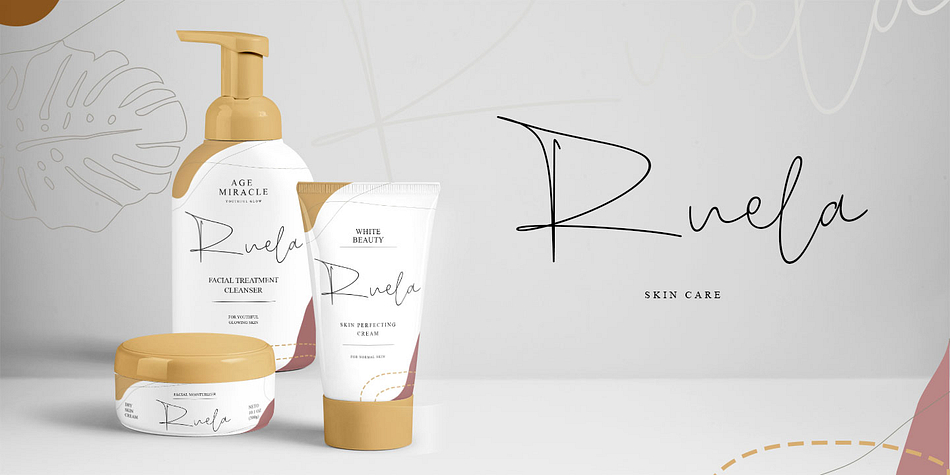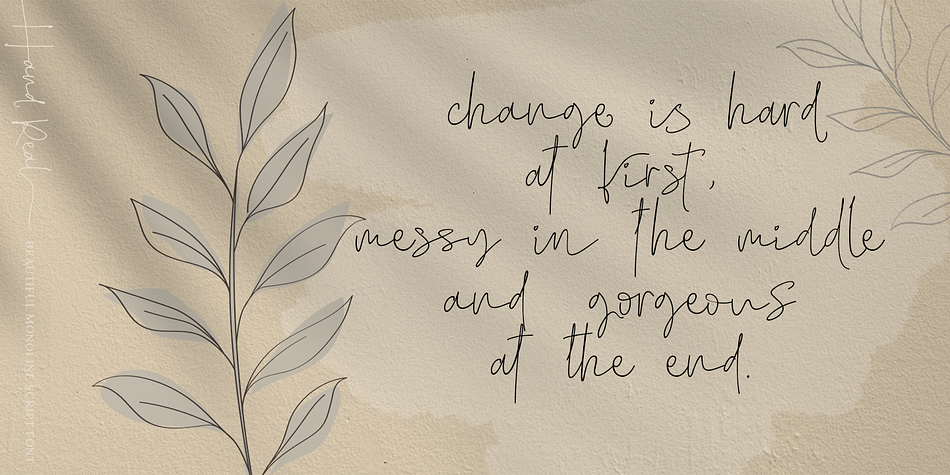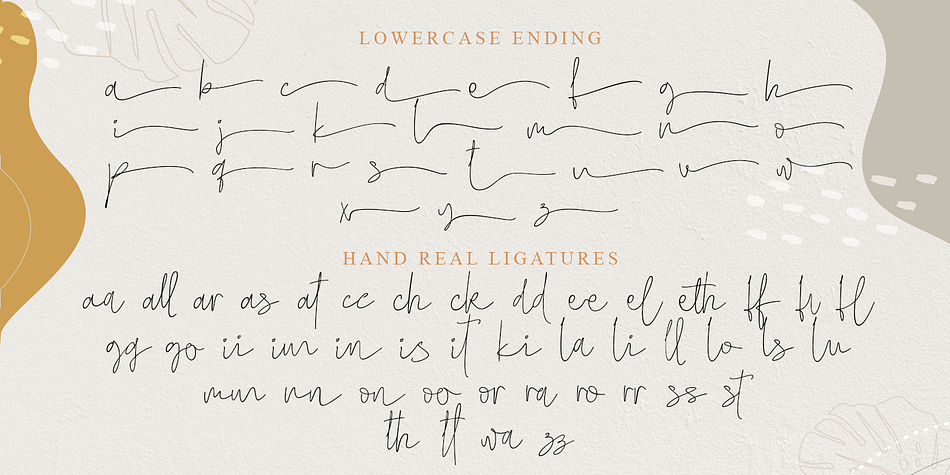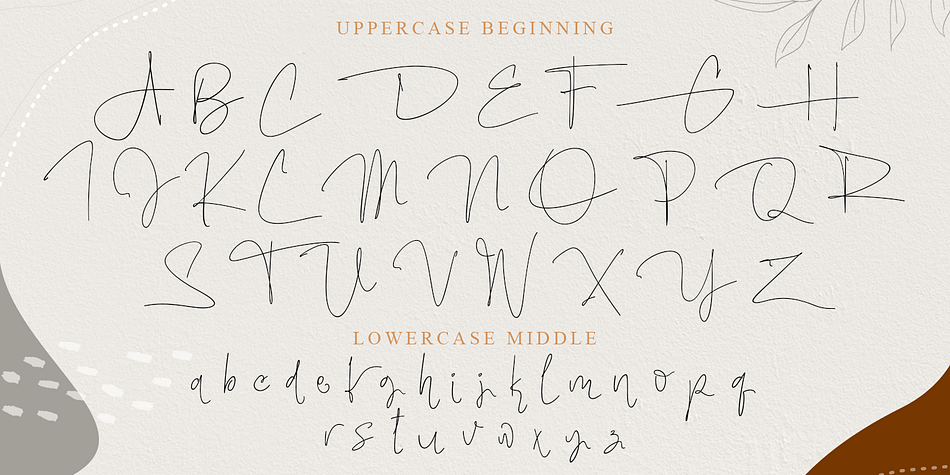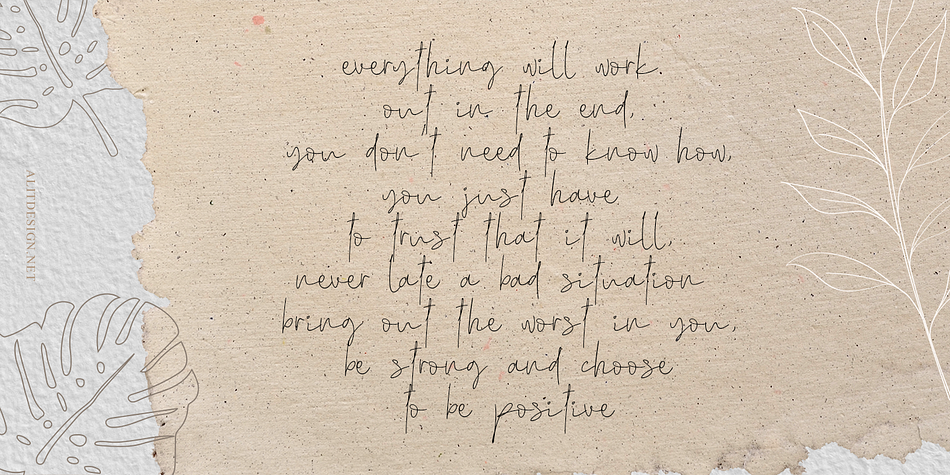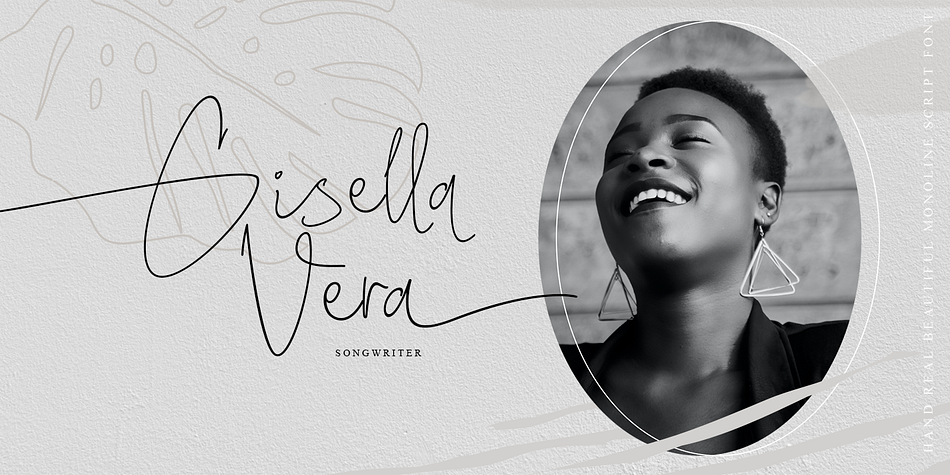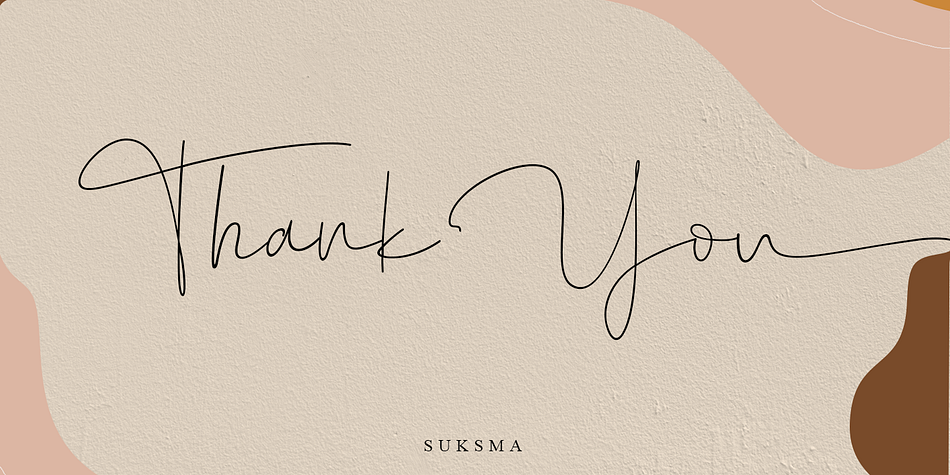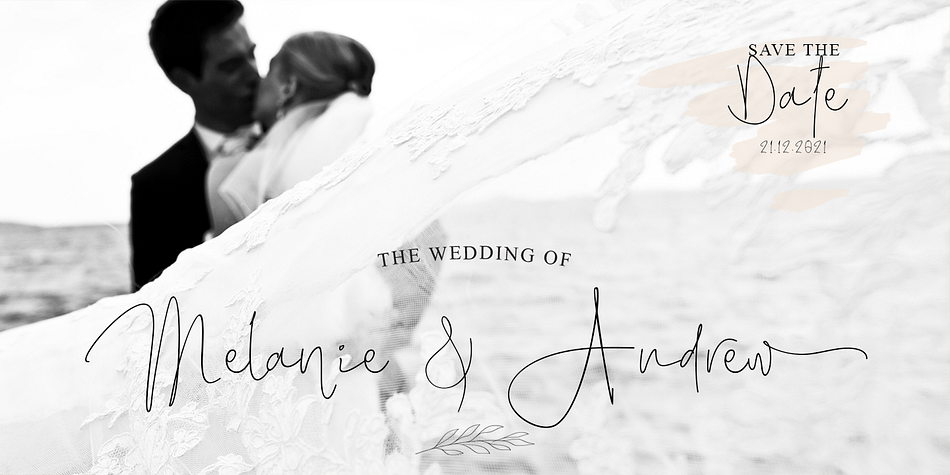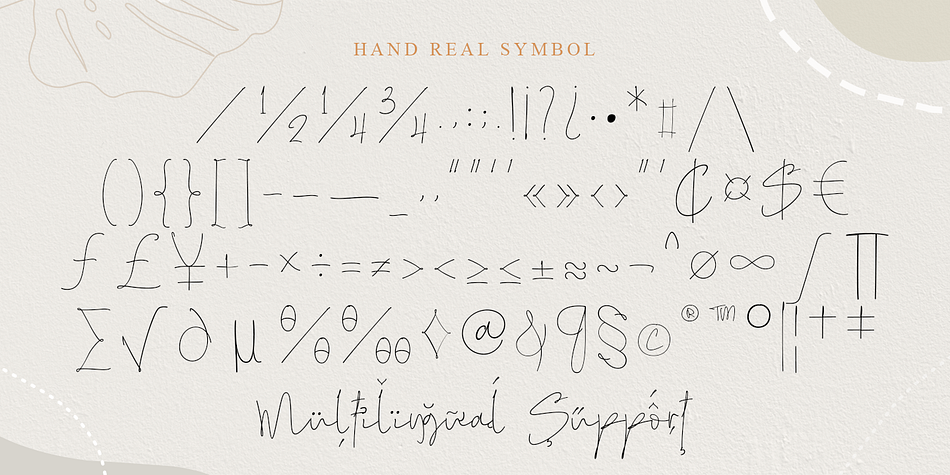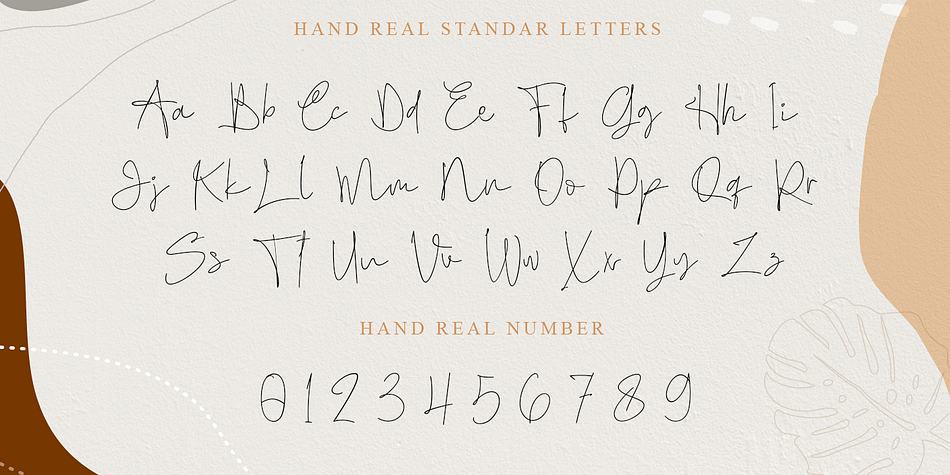
Designed by Alit Suarnegara, Hand Real is a script font published by Alit Design.
Hand Real This font is inspired by the signature that makes writing cool and unique. The limp and natural monoline script style is perfect for a young, bold and cool design. Hand Real font is perfect for designs with a girly, love and relaxed concept.
Very well applied to wedding invitation card designs, logotypes, business card designs and so on.